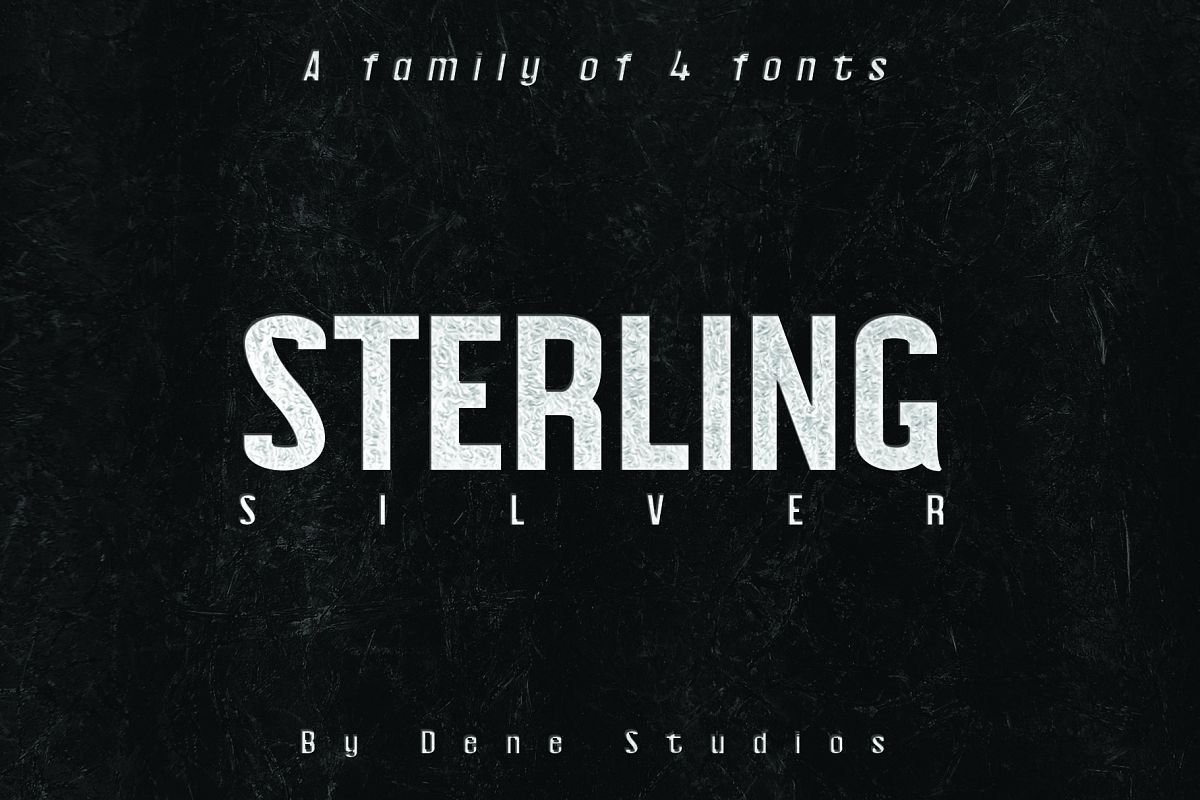
STERLING, A Powerful Sans Serif
A powerful sans serif font. Sterling is a modern sans serif type that has plenty to personality and adds a lot to a project. Comes in regular, italics, bold and bold italics. Sterling comes with upper and lowercase, basic characters, numbers, marks, and punctuation.